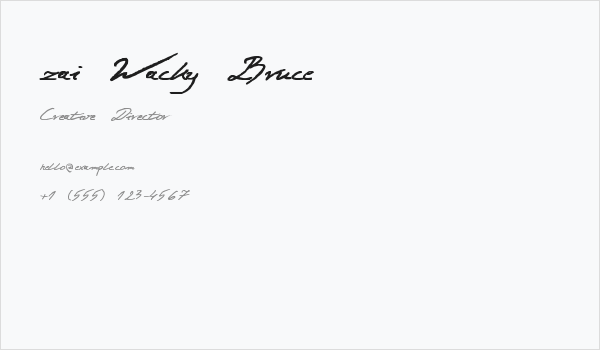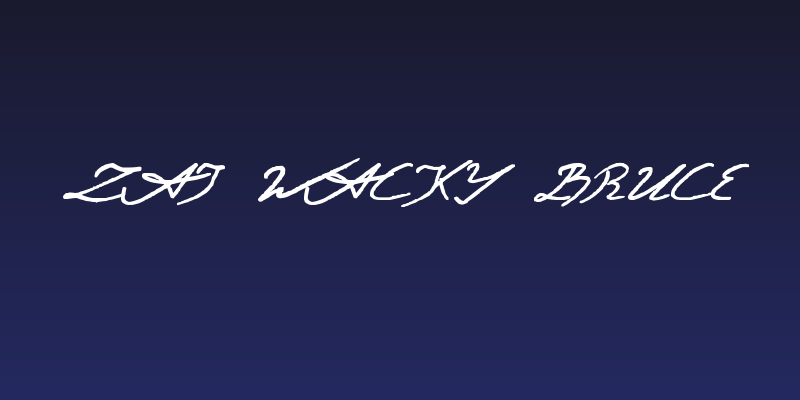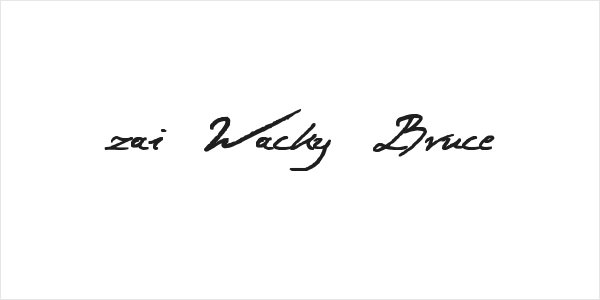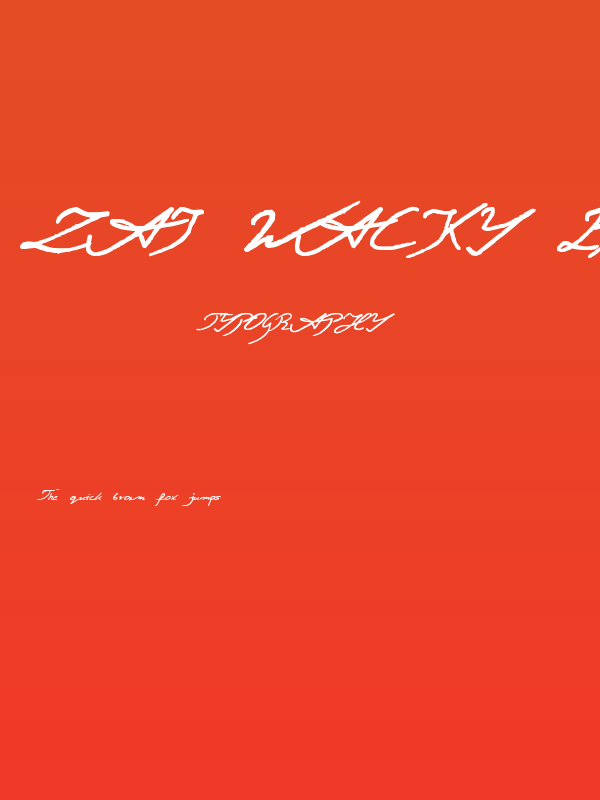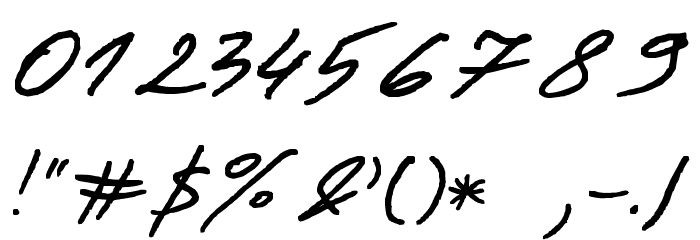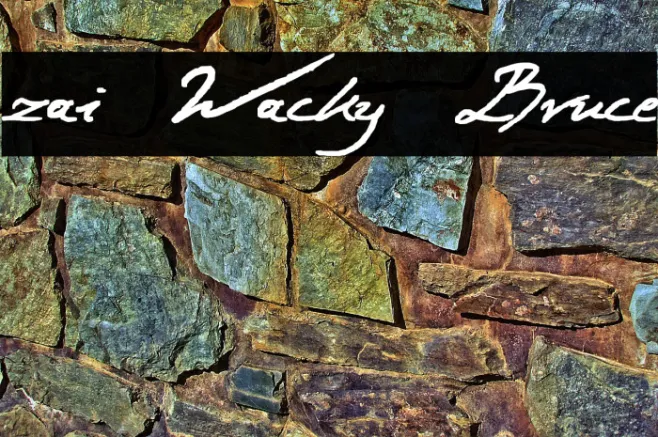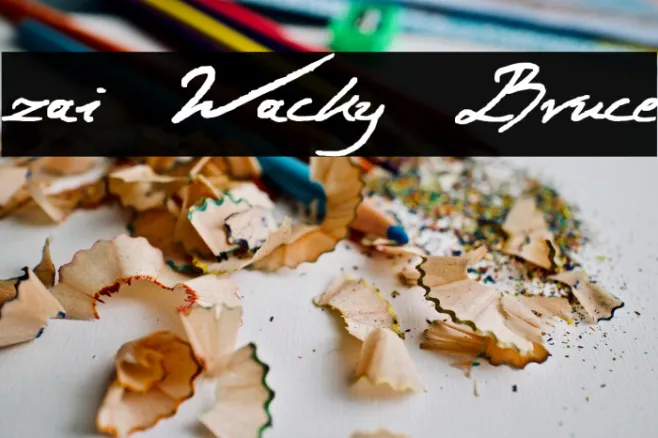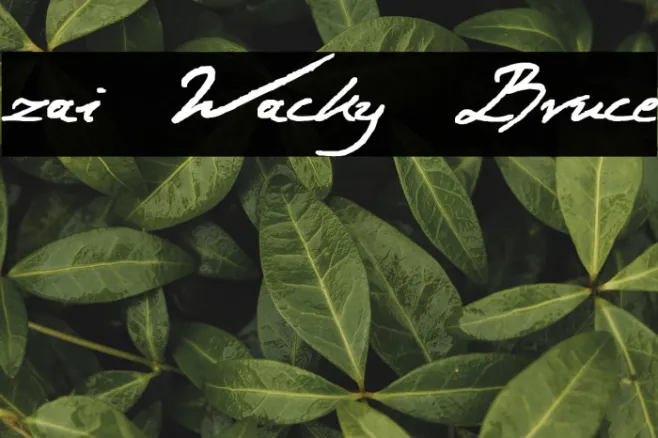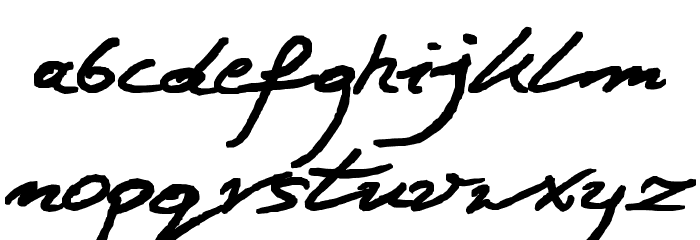
zai Wacky Bruce Font
zai Wacky Bruce Description
This font exudes a lively and dynamic energy, characterized by its fluid, cursive script style. The letters are interconnected with elegant, sweeping strokes that mimic the natural flow of handwriting. Each character is crafted with a sense of movement, giving the text a rhythmic and spontaneous appearance. The uppercase letters are bold and prominent, while the lowercase letters maintain a consistent flow, enhancing readability. The numbers and special characters are designed with the same fluidity, ensuring a cohesive look across all text elements. This font is perfect for projects that require a personal touch, as it captures the essence of handwritten notes and letters.
| Proposed Projects | Ideal for greeting cards, invitations, personal branding, and artistic projects. |